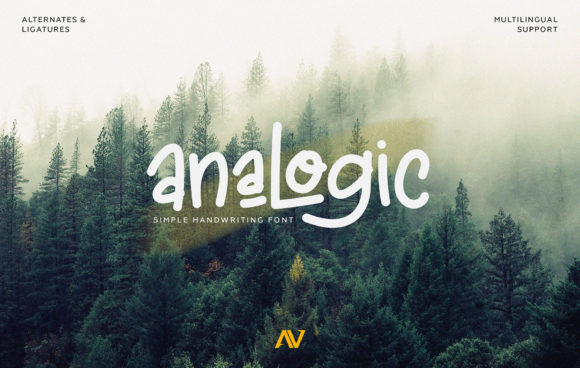
Prepare to be thrilled by the playful and enchanting Analogic font, a delightful creation from Arsa Visual that's sure to ignite your imagination. With its charming handwritten style, Analogic flawlessly captures the innocence and joy of childhood, making it the perfect pick for invitations that celebrate life's little wonders.
Analogic's captivating informality lends itself beautifully to a wide range of creative endeavors. Its casual vibe and quirky charm will add a touch of whimsy to your invitations, turning them into cherished keepsakes that reflect the unique spirit of your little ones.
Whether you're crafting invitations for birthday bashes, playdates, or any special occasion that calls for a sprinkle of magic, Analogic is your go-to choice. Its enchanting loops and playful strokes will leave a lasting impression on your guests, creating memories that will be treasured for years to come.